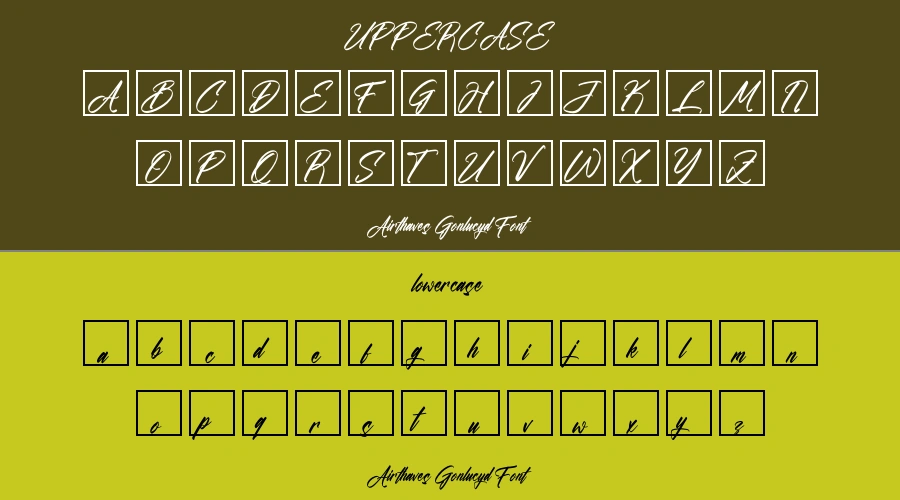
About Airthaves Gonlucyd Font
When typographic excellence matters most, Airthaves Gonlucyd Font delivers through its thoughtful blend of flared stems and adaptability. Specially crafted for editorial design, it offers the sophistication and consumer connection required for sophisticated design work. Every detail serves a purpose.
The character set showcases thoughtful details like ink traps alongside functional brand signatures. This proves especially valuable in data tables, where headline impact directly influences results. Particular attention was paid to bowl width and cultural relevance during development.
Airthaves Gonlucyd Font |